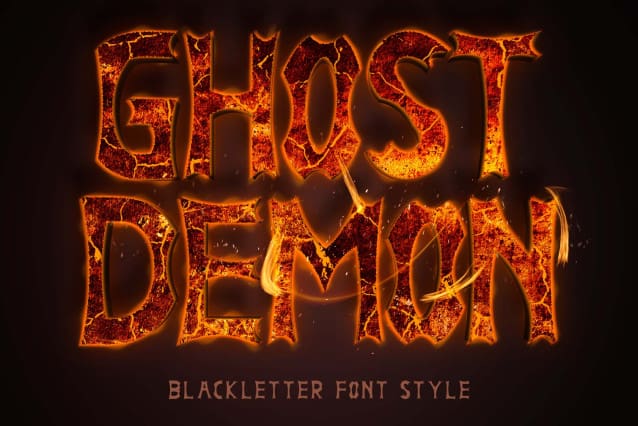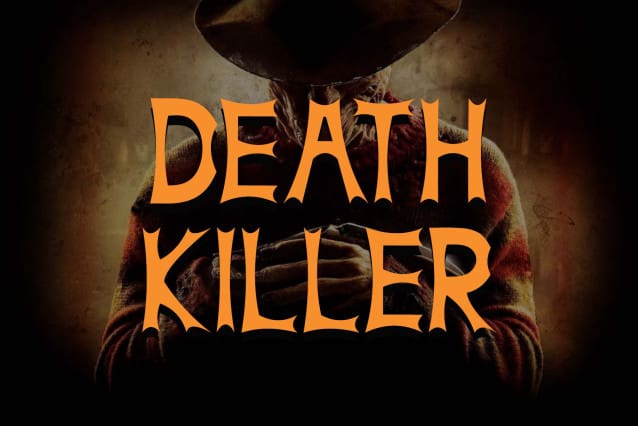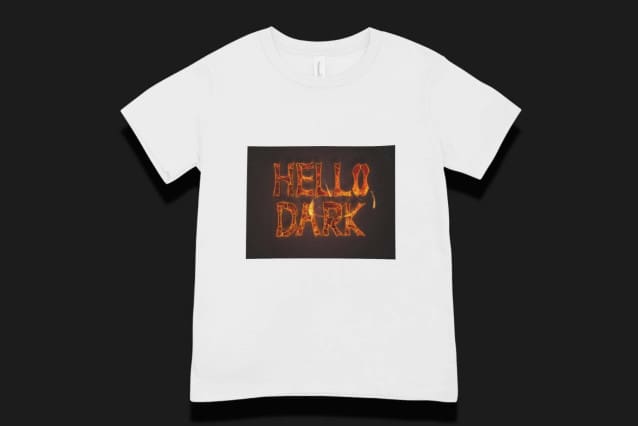
Ghost Demon Font
Ghost Demon Font is a spooky and creepy blackletter font. It comes with capital letters, lowercase letters, numbers, punctuation, and multilingual support. It is perfect for use on Halloween, posters, festivals, metal concerts, Christmas, horror movie titles, horror comic titles, and more.